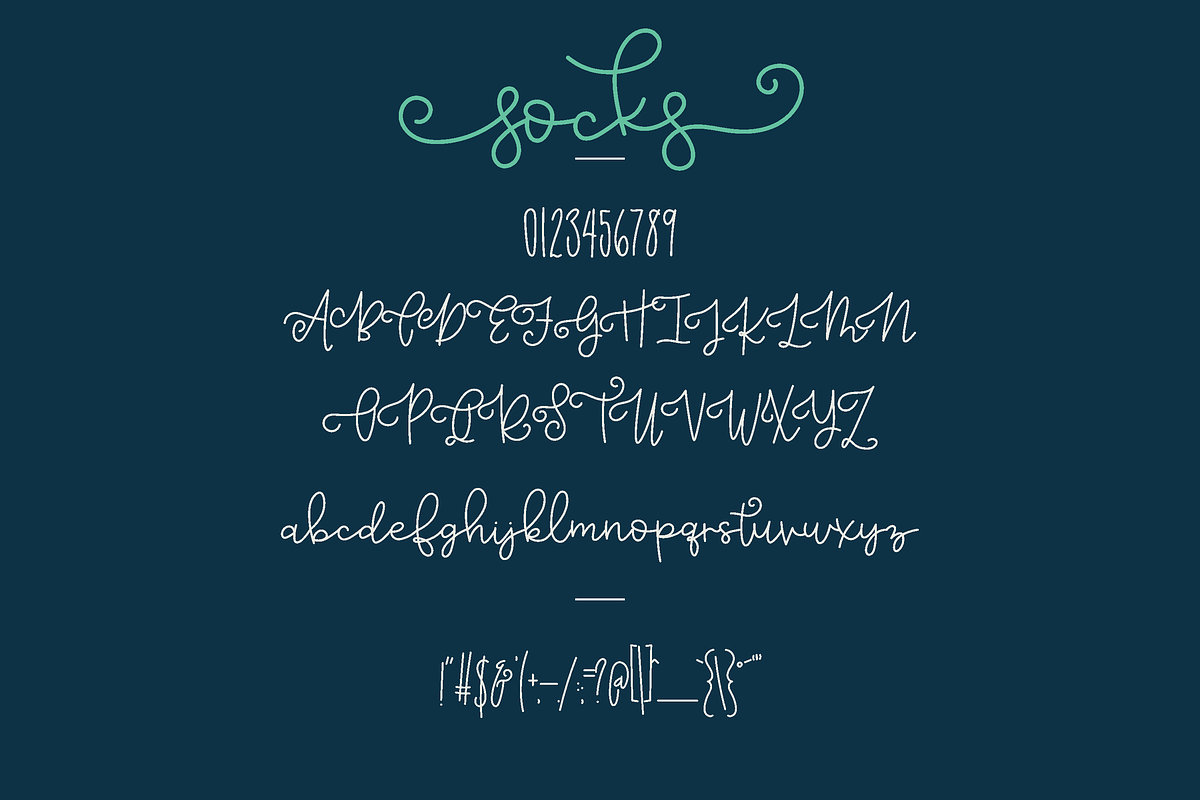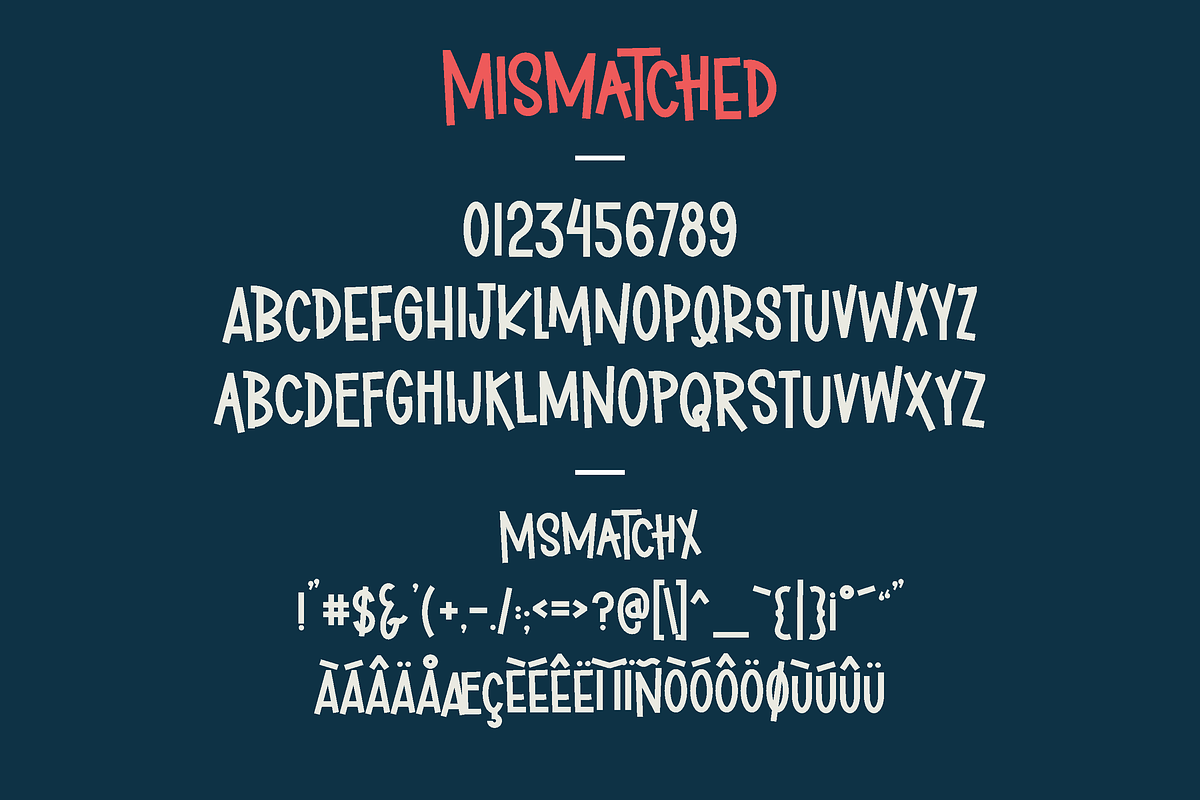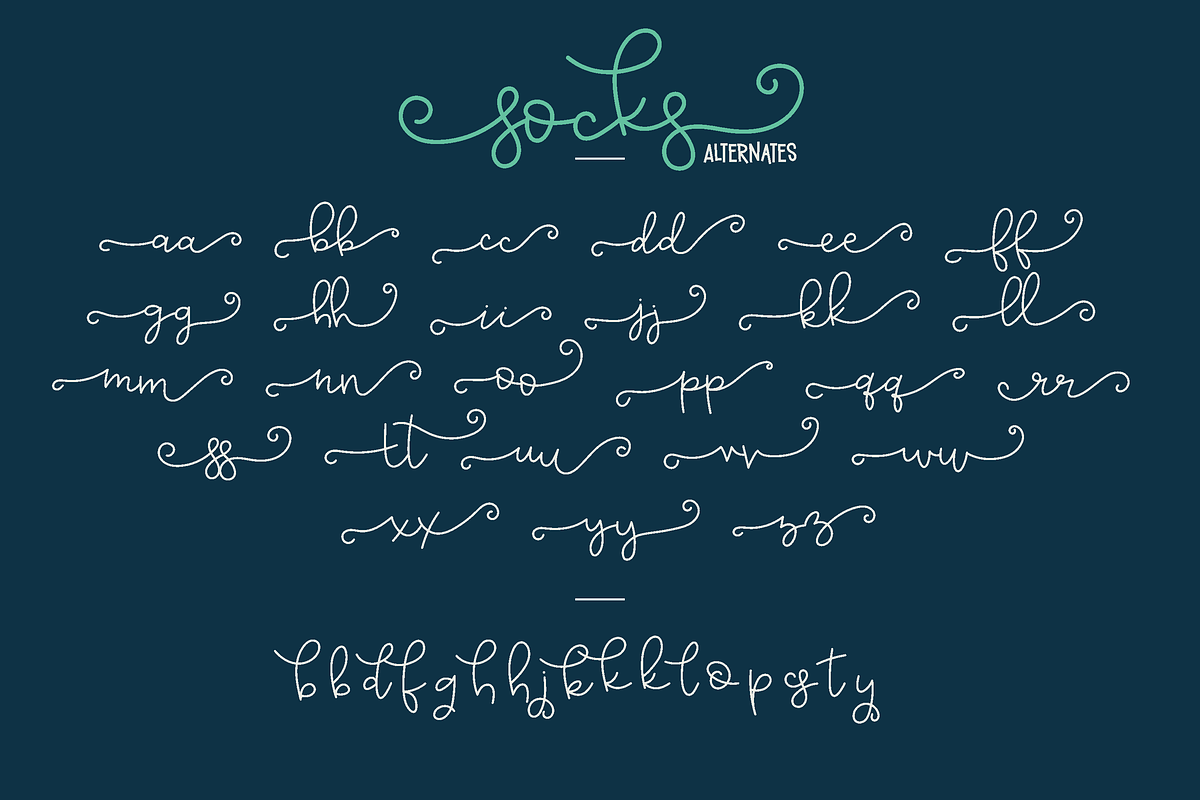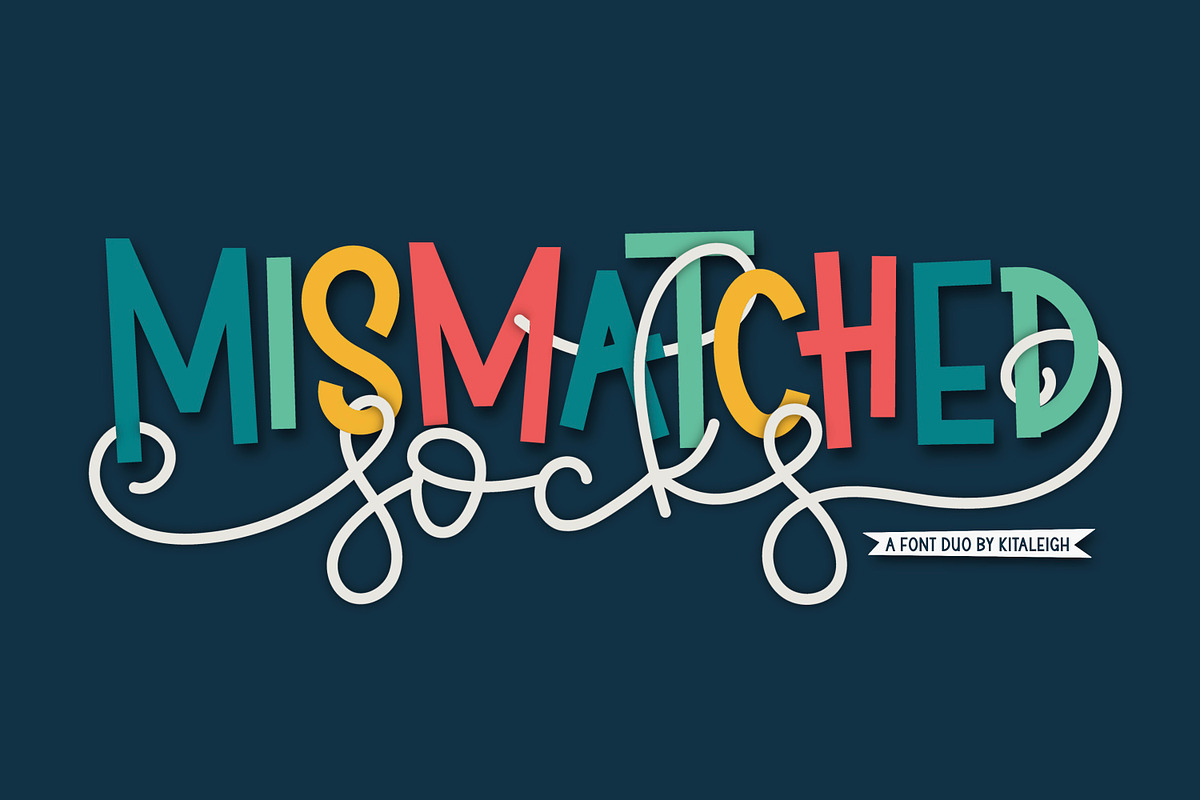
Mismatched Socks
Add a touch of elegance to your project with this beautiful script font! Perfect for creating stylish and sophisticated designs, this unique font will make your project shine.